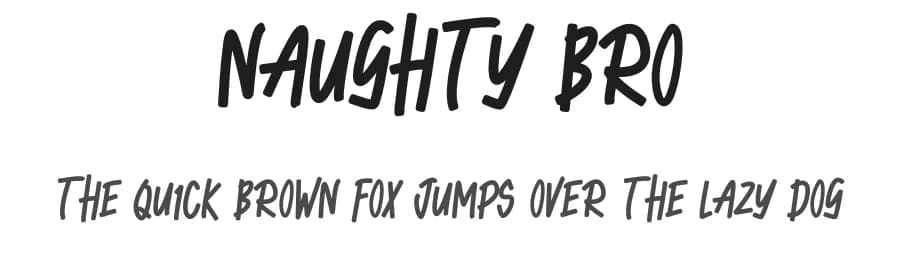
About Naughty Bro Font
| Designer | EDDY ISTIYAN ZUHRI |
Naughty Bro Font is a script font that shines as a display or heading face. Pair it with a clean sans-serif or serif font for body text β the contrast creates a clear hierarchy while the two styles stay balanced and easy to read.
Naughty Bro Font
by Invitara